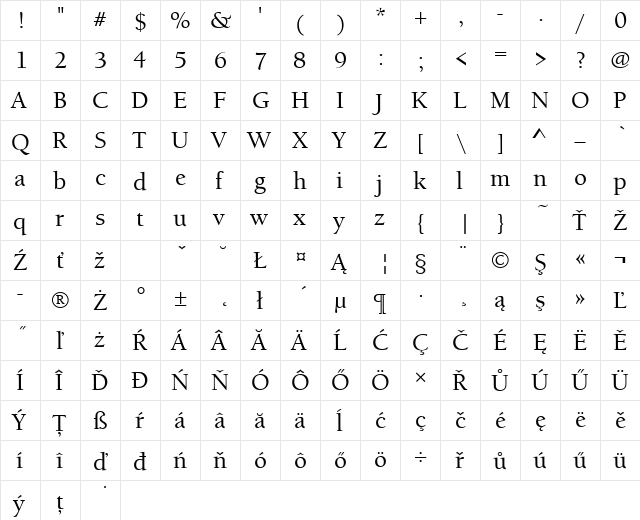
BerkeleyOldStyItcTEEMed Regular
Design Context for BerkeleyOldStyItcTEEMed Typeface
BerkeleyOldStyItcTEEMed takes a measured approach to typography — its balanced proportions and neutral character make it a reliable workhorse for both digital and print work.
Pro Tip: Use BerkeleyOldStyItcTEEMed in both headline and body roles to test its range before committing to a single application.